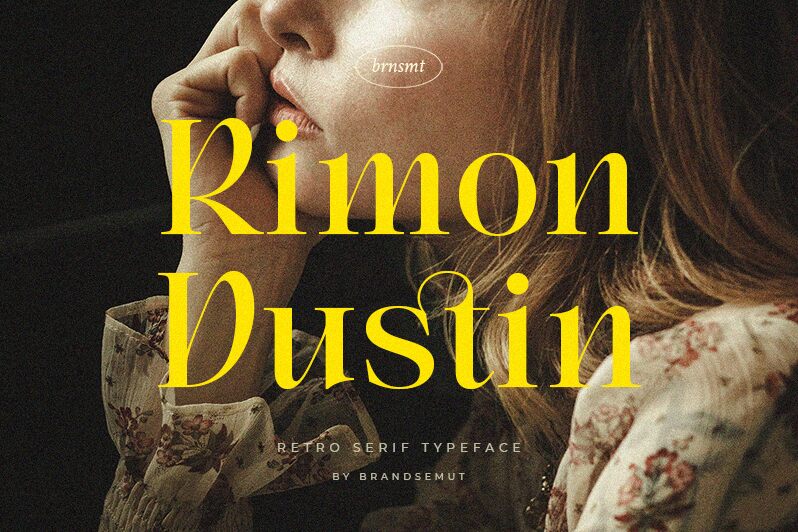
Rimon Dustin
Rimon Dustin, a sophisticated serif font designed by BrandSemut, brings elegance and professionalism to any project.
With its clean and timeless design, this font is perfect for creating stylish logos and branding materials that leave a lasting impression. Its versatility also makes it suitable for crafting elegant wedding invitations, luxurious magazine layouts, and refined editorial pieces. The sharp serifs and balanced proportions of Rimon Dustin lend themselves well to both digital and print designs, making it an ideal choice for webpages, blogs, and high-end publications.
This font effortlessly combines classic charm with contemporary appeal.